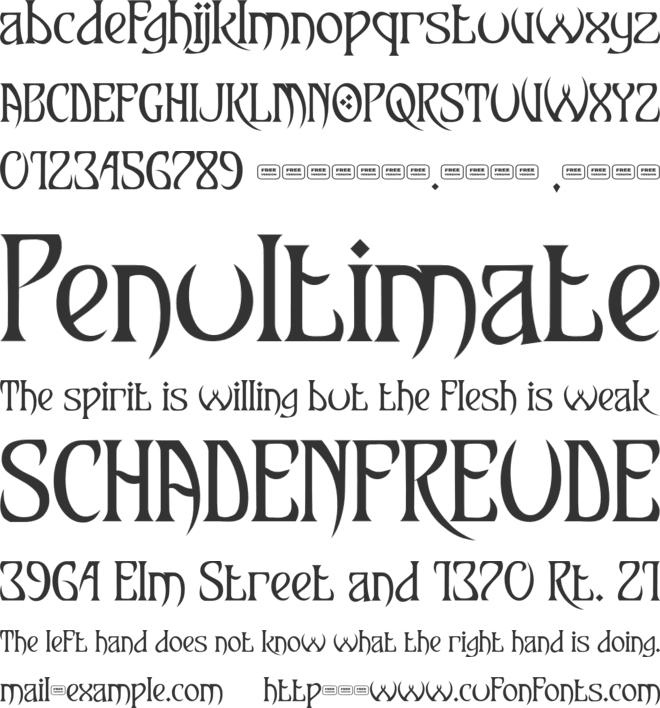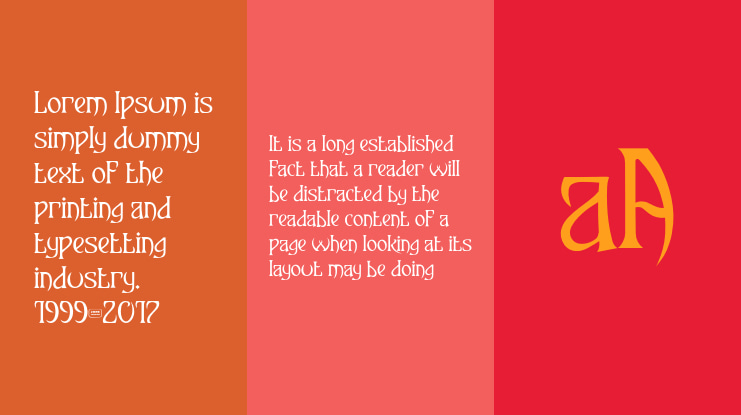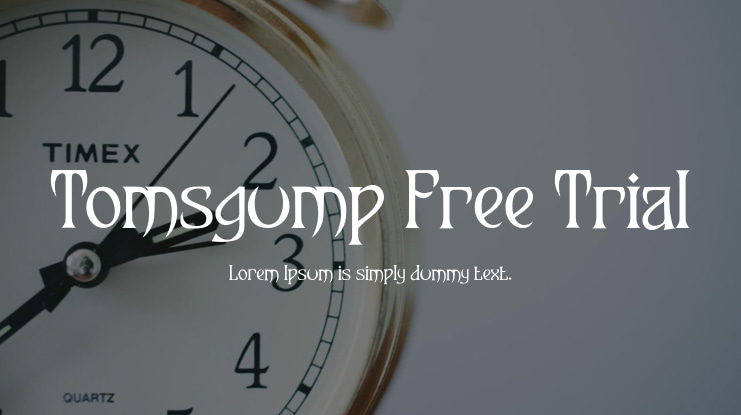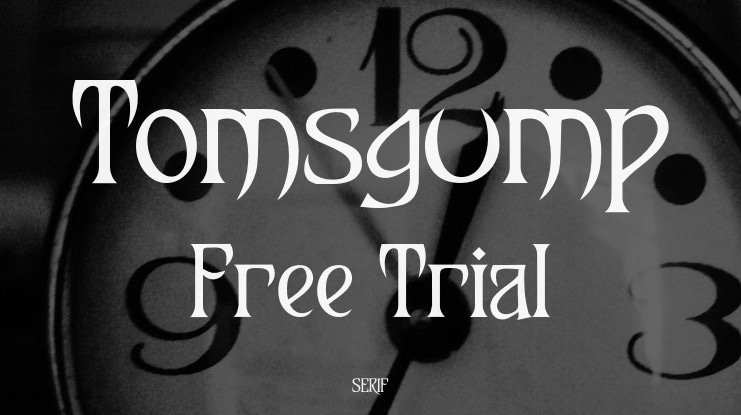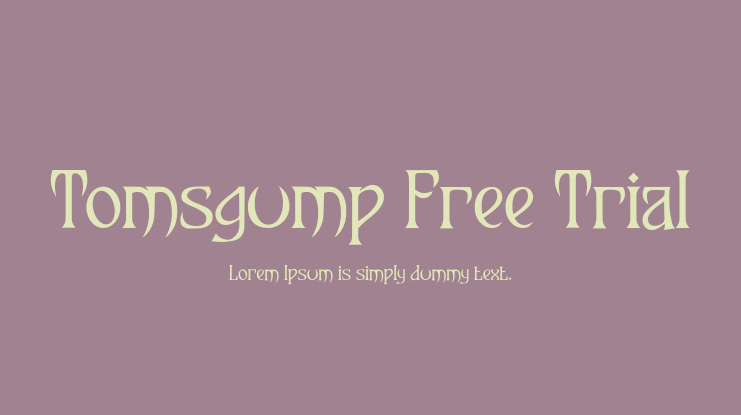
Tomsgump Free Trial Font
Set sail on an exciting adventure with "Tomsgump" - a bold pirates-themed typeface that embodies the adventurous spirit of the open seas!
With its daring and maritime-inspired letter shapes, "Tomsgump" adds a touch of swashbuckling charm to any project. Each letter is meticulously crafted to bring a sense of maritime thrill to your designs, making it ideal for adventurous branding, captivating posters, pirate-themed events, and more.
Embrace the adventurous vibe of "Tomsgump" as it elevates your designs effortlessly. Whether you're creating graphics reminiscent of treasure maps, eye-catching event flyers, pirate-themed logos, or engaging social media posts, this typeface will captivate your audience with its spirited and bold style.